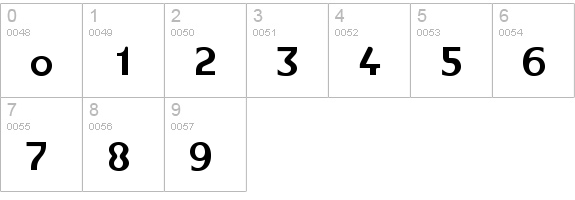
Gerstner BQ Medium is a balanced, medium-weight variant in the Gerstner typeface family \xE2\x80\x94 well suited to sub-headlines, navigation, and balanced editorial work.
Gerstner BQ Medium is a versatile and elegant font that exudes sophistication and modernity. With its clean lines and balanced design, this typeface is perfect for a wide range of design projects, from branding to editorial layouts. The medium weight of Gerstner BQ Medium strikes the ideal balance between presence and subtlety, making it a reliable choice for conveying professionalism and style. What sets Gerstner BQ Medium apart is that it is available for free download at FontsMarket.com. This means that you can easily access and use this high-quality font in your projects without any cost. Whether you're working on a print design, website, or any other creative endeavor, Gerstner BQ Medium offers a timeless and refined aesthetic that will elevate your work to the next level. Don't miss out on the opportunity to enhance your designs with this exceptional font, now conveniently available for free at FontsMarket.com.